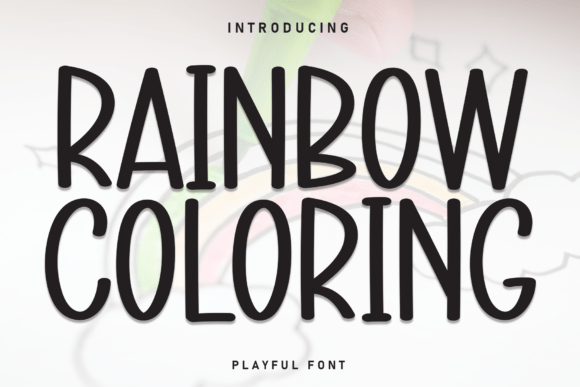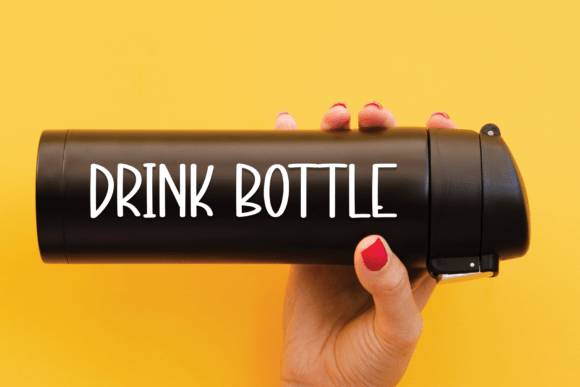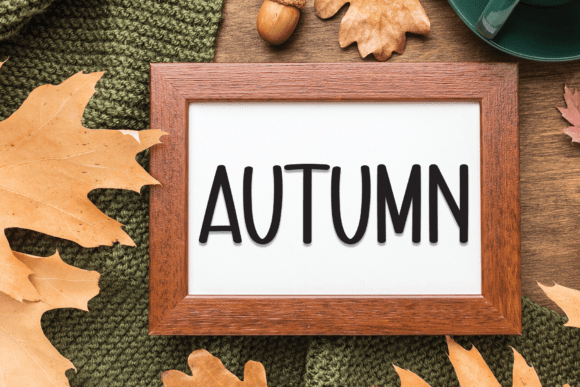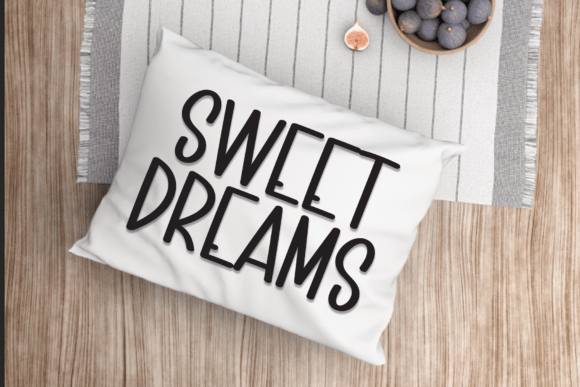
Rainbow Coloring Font
About the Rainbow Coloring Font
Elevate your designs with Rainbow Coloring Font, a font that combines sophistication with readability. This handwritten display font brings a touch of personality and charm to your creative projects. With its casual strokes and organic flow, it captures the feel of natural handwriting—making it ideal for quotes, posters, branding, and social media graphics. Its playful yet legible style adds warmth and authenticity, turning every word into a visual conversation.
Rainbow Coloring Font’s playful yet legible nature makes it a strong choice for headlines, short-form content, and branding elements where a friendly, approachable feel is desired. It excels in posters, social media graphics, and packaging for products targeting a younger or more casual demographic. However, its handwritten style is less suitable for body text or UI elements requiring high readability over extended lengths.
Consider pairing Rainbow Coloring Font with a clean sans-serif like Open Sans for balance, or a more geometric sans-serif for a modern contrast. A classic serif like Garamond could add a touch of sophistication, while a script font like Great Vibes might enhance its playful energy, depending on the desired overall effect.
The font’s core personality is best described as friendly and approachable, with a touch of whimsy. It’s perfect for brands that wish to convey warmth and authenticity, while maintaining a clear and engaging visual identity.
Rainbow Coloring Font Usage Examples
Rainbow Coloring Font Example